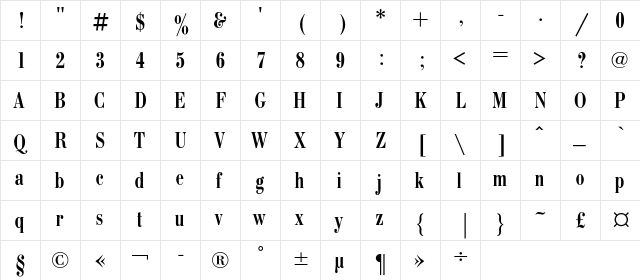
BodoniCondC Regular
Design Context for BodoniCondC Typeface
BodoniCondC offers clean, dependable letterforms without strong stylistic allegiance, making it a practical choice for designers who need flexibility. The condensed width makes it efficient for tight spaces without sacrificing legibility.
Pro Tip: Use BodoniCondC in both headline and body roles to test its range before committing to a single application.